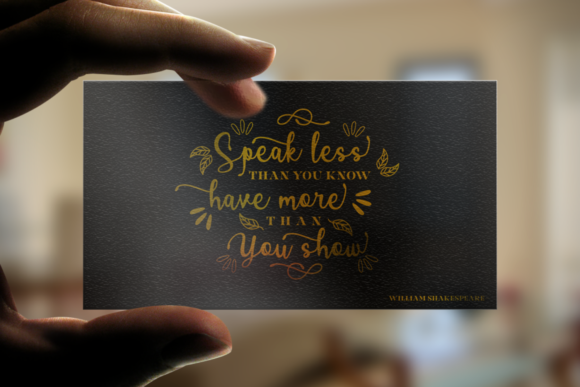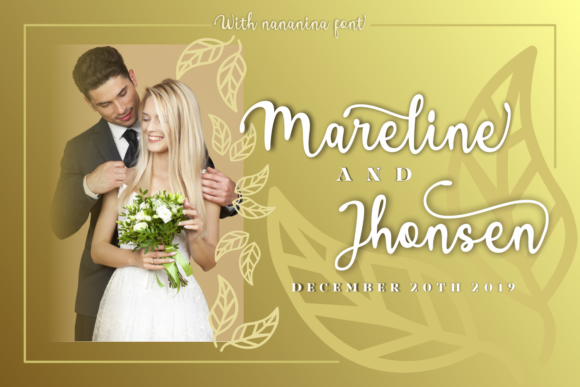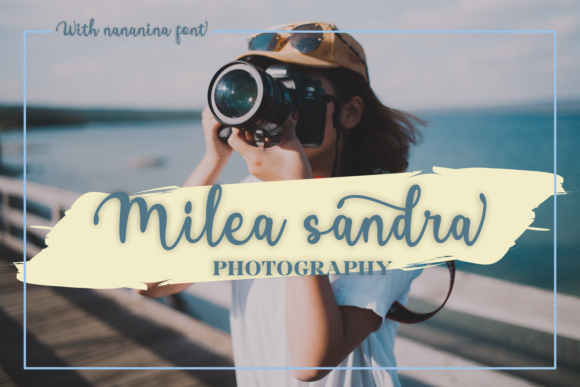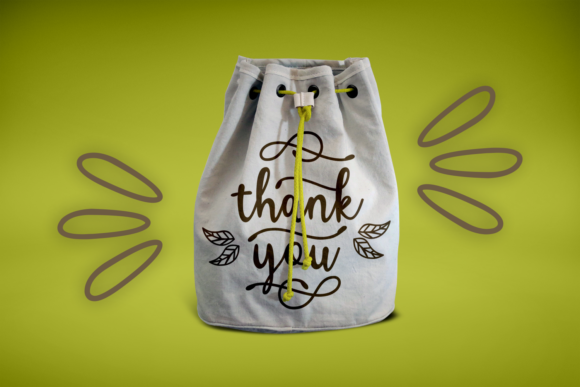
Nananina Font
About Nananina Font
Nananina is a fun and elegant handwritten font that will turn any design project into a stunner. Fall in love with its romantic elements!